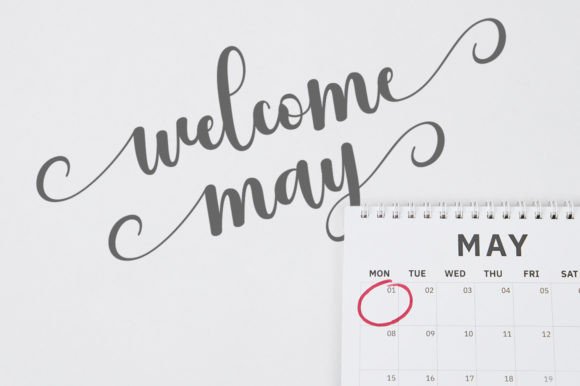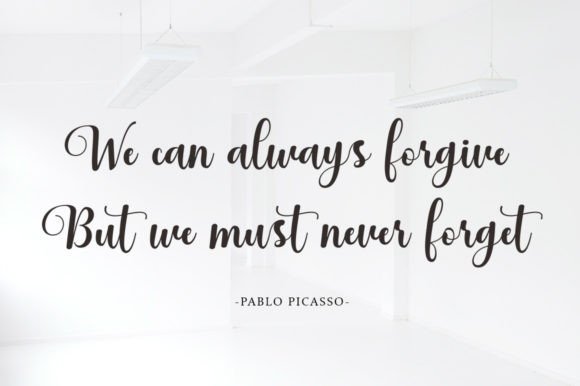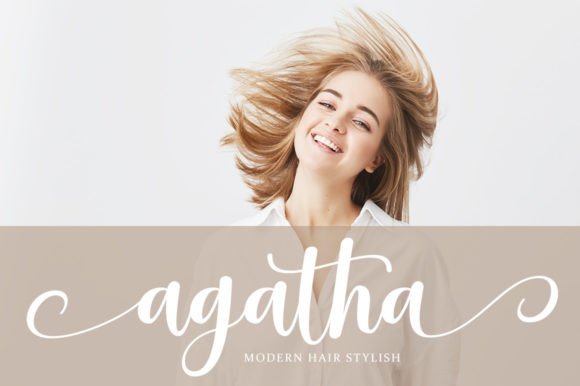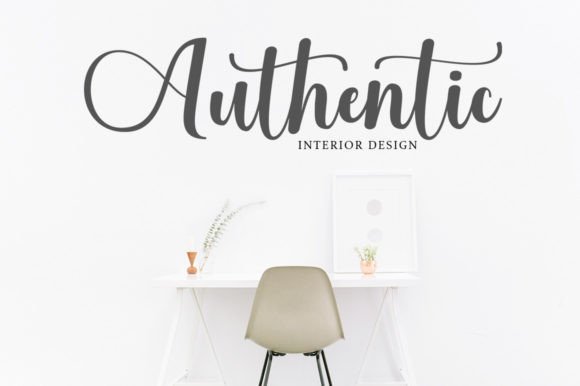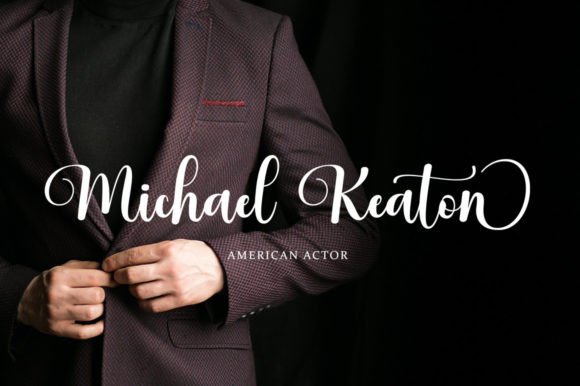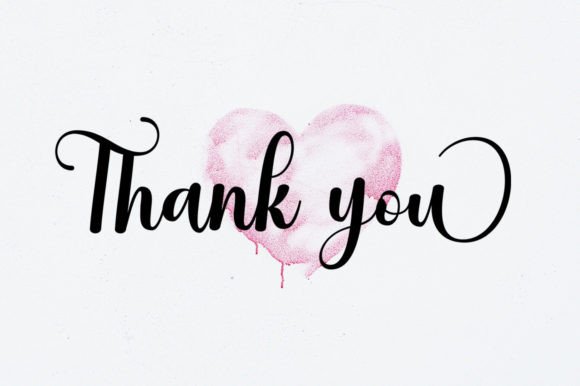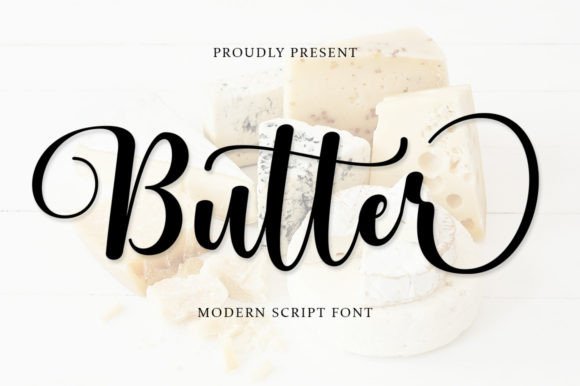
Introducing Butter Font: Elevate Your Designs with Elegance
Are you on the hunt for a font that adds a touch of sophistication and elegance to your projects? Look no further than Butter Font, a beautiful, flowing handwritten font that is sure to capture your heart. With its distinct and timeless style, Butter Font is the perfect choice for designers and crafters looking to create spectacular designs that stand out from the crowd.
The Charm of Butter Font
Butter Font boasts an elegant touch that sets it apart from other fonts. Its flowing lines and curves create a sense of movement and fluidity, making it ideal for designs that require a personal and human touch. Whether you’re working on a branding project, a wedding invitation, or a craft project, Butter Font is sure to add a level of sophistication and refinement that elevates your design to the next level.
Distinct and Timeless Style
One of the standout features of Butter Font is its incredibly distinct and timeless style. Unlike trendy fonts that come and go, Butter Font has a classic appeal that won’t date quickly. Its unique character set and elegant lines ensure that your designs will remain stylish and relevant for years to come. Whether you’re a designer looking to create a consistent brand identity or a crafter seeking to add a personal touch to your projects, Butter Font is an excellent choice.
Butter Font is PUA (Private Use Area) encoded, which means that you can access all the glyphs and ligatures with ease. This feature makes it simple to use the font in your designs, even if you’re not a typography expert. With PUA encoding, you can quickly and easily access the full range of characters, including alternates, ligatures, and swashes, allowing you to create complex and beautiful designs with minimal fuss.
Perfect for a Range of Projects
Butter Font is an incredibly versatile font that can be used for a wide range of projects. Here are just a few ideas to get you started:
- Branding and logos: Use Butter Font to create a unique and memorable brand identity that sets your business apart.
- Wedding invitations and stationery: Add a touch of elegance and sophistication to your wedding invitations, save-the-dates, and other stationery with Butter Font.
- Craft projects: Use Butter Font to add a personal touch to your craft projects, such as scrapbooking, card making, and journaling.
- Digital designs: Butter Font is perfect for digital designs, including social media graphics, blog headers, and website titles.
Why Choose Butter Font?
With so many fonts to choose from, why should you choose Butter Font? Here are just a few reasons:
- Elegant and sophisticated: Butter Font adds a touch of elegance and sophistication to any design.
- Unique and distinctive: Butter Font has a unique and distinctive style that sets it apart from other fonts.
- PUA encoded: Easy access to all glyphs and ligatures makes it simple to use the font in your designs.
- Versatile: Butter Font can be used for a wide range of projects, from branding and logos to wedding invitations and craft projects.
If you’re looking for a font that adds a touch of elegance and sophistication to your designs, look no further than Butter Font. With its distinct and timeless style, PUA encoding, and versatility, Butter Font is the perfect choice for designers and crafters looking to create spectacular designs. So why wait? Fall in love with Butter Font and elevate your designs to the next level!